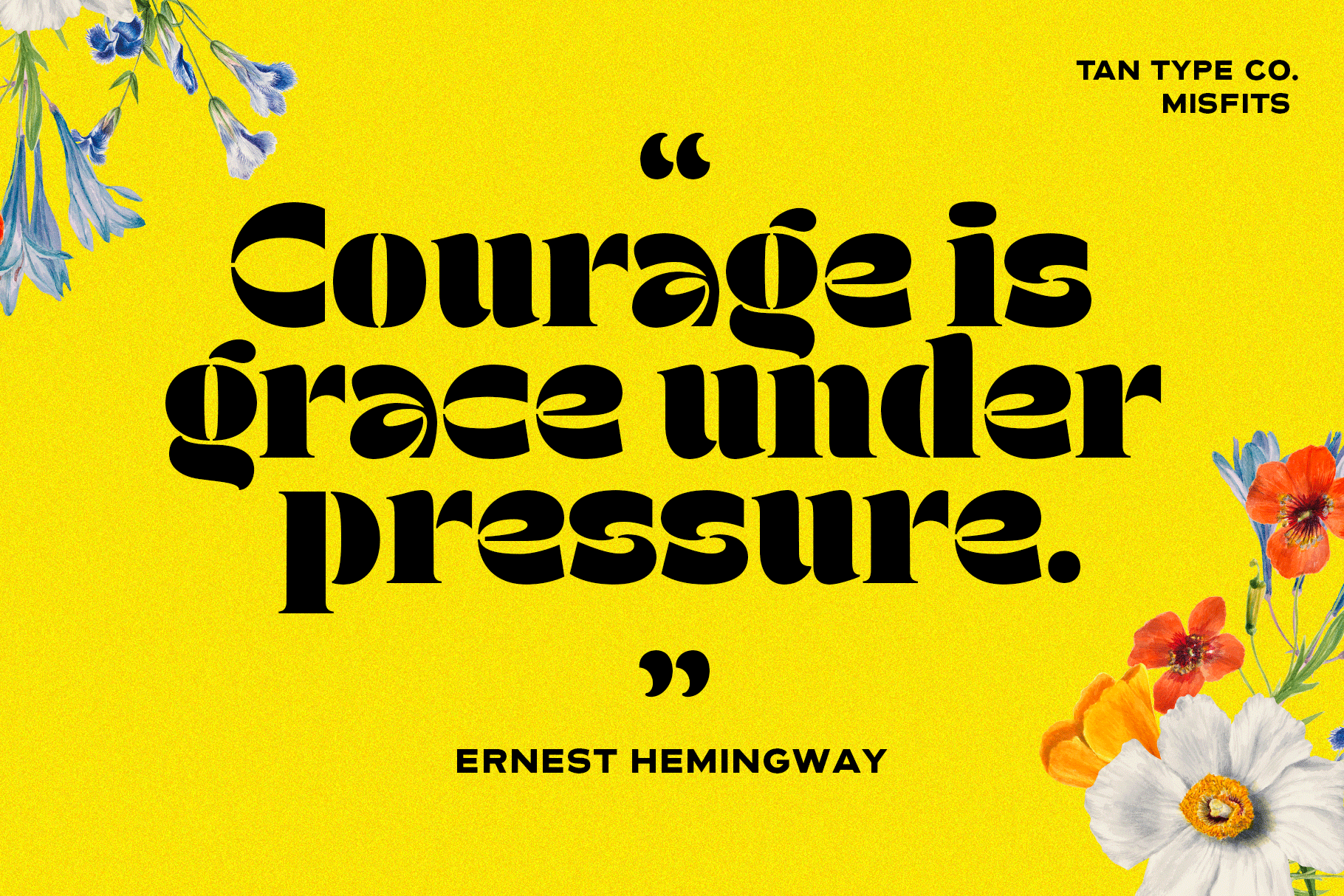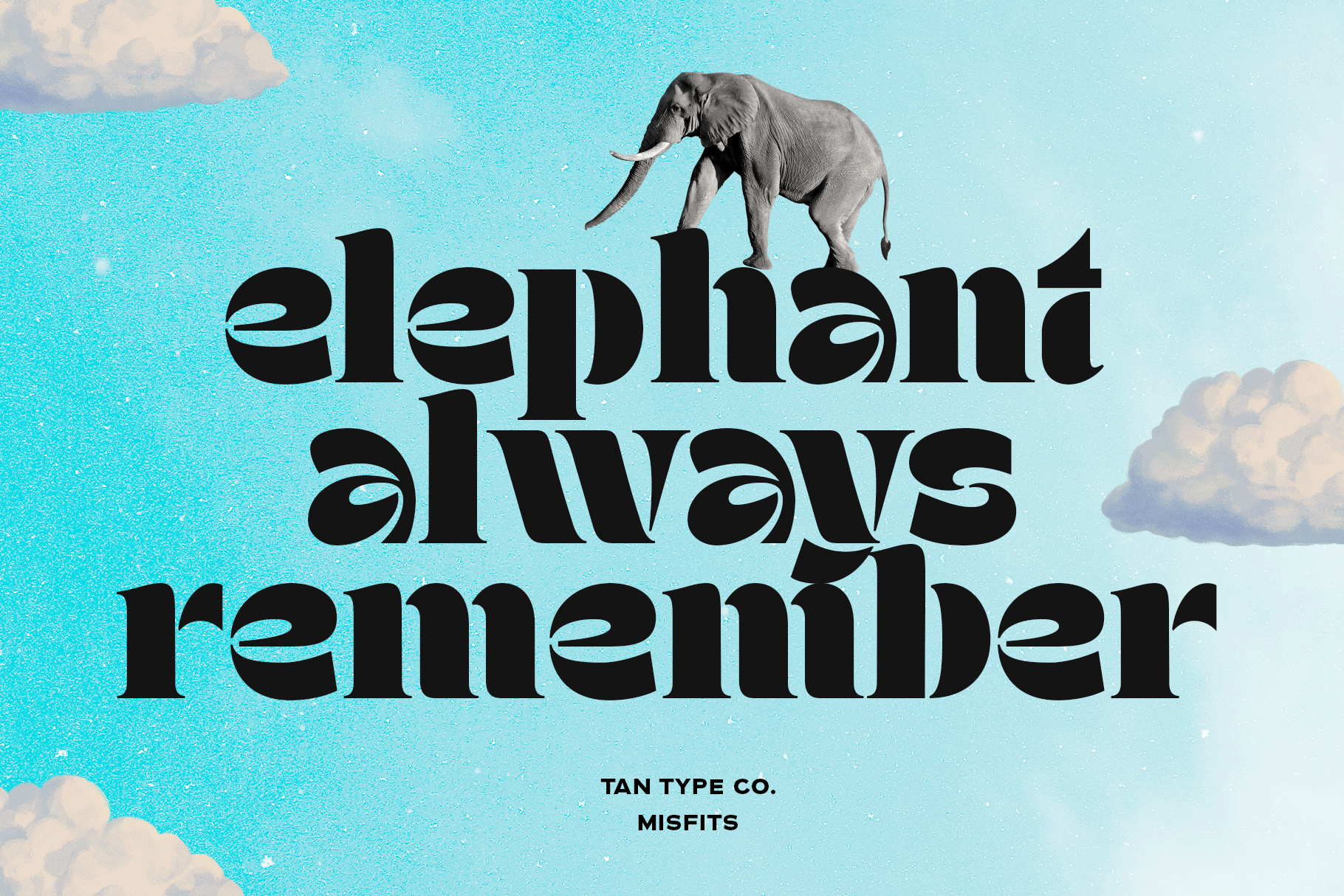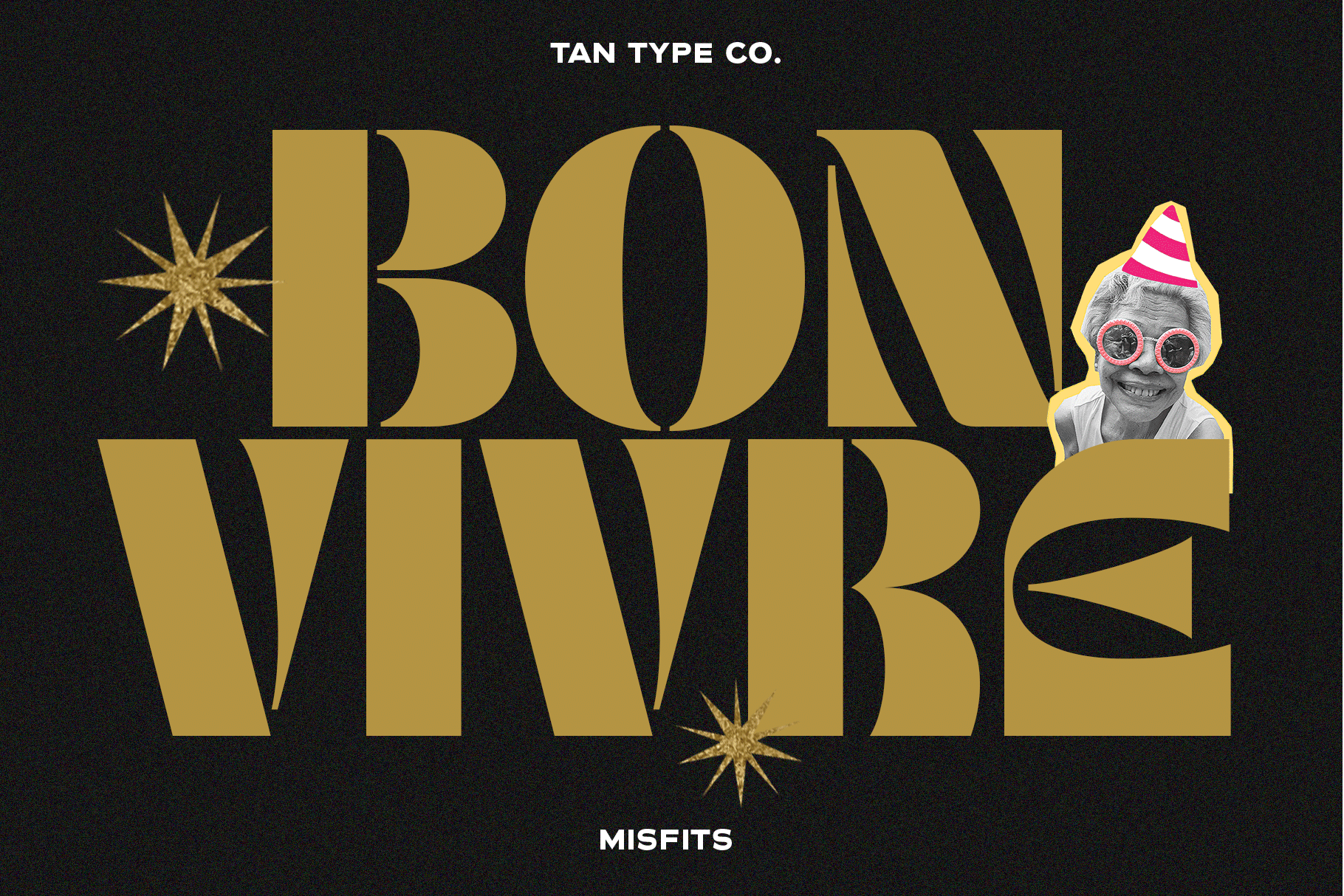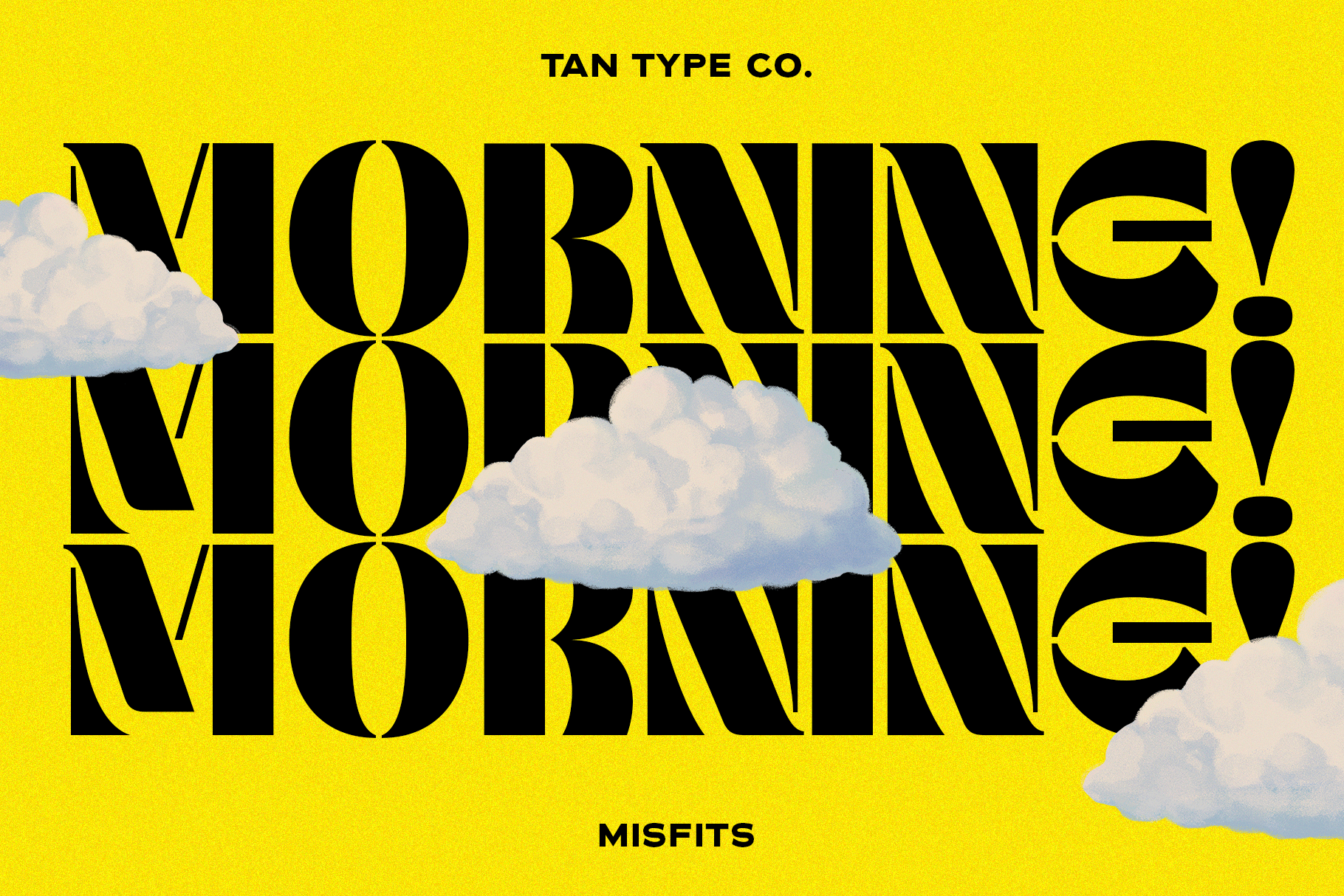
MISFITS is a bold and unconventional typeface that merges geometric structure with experimental flair. Its abstracted letterforms and high contrast cuts create a visually arresting rhythm, delivering a rebellious, modern edge with retro undertones.